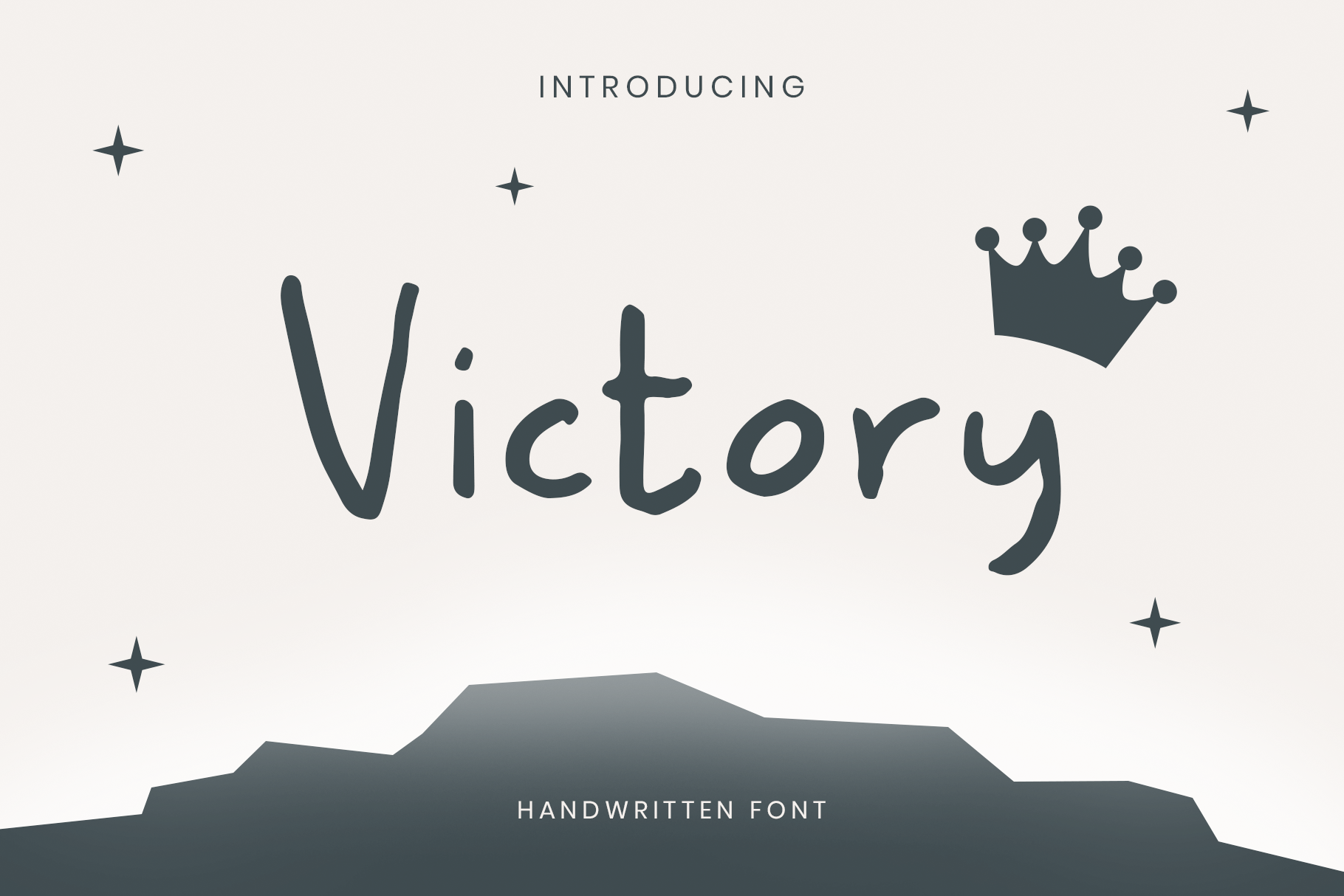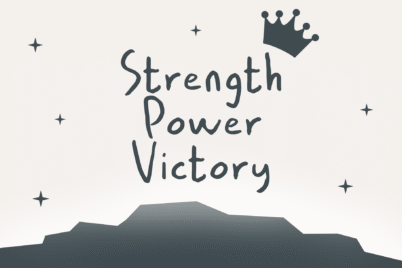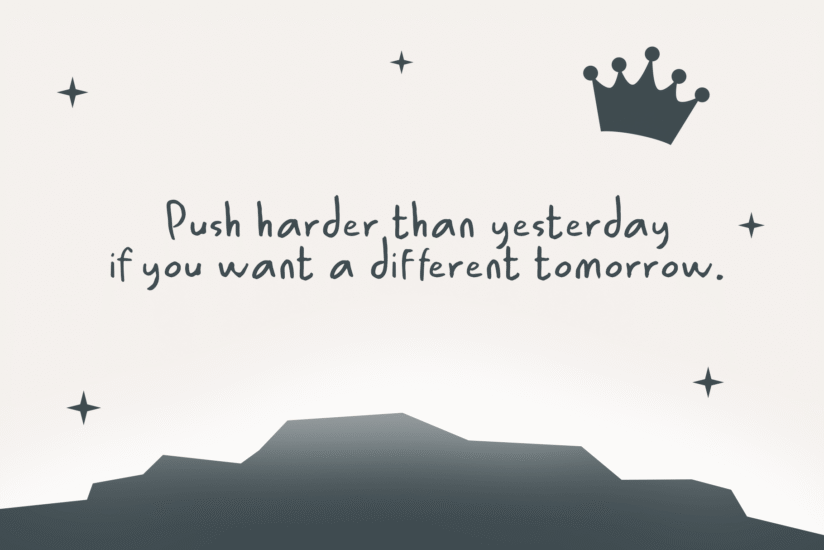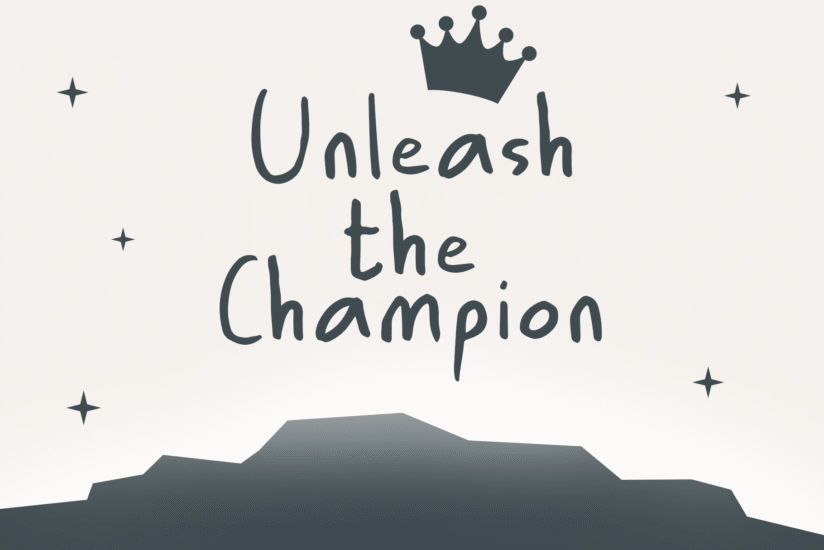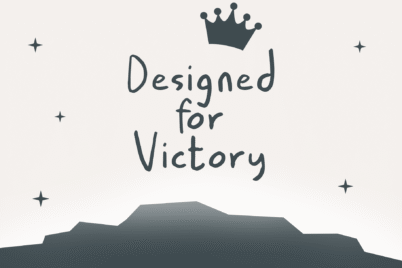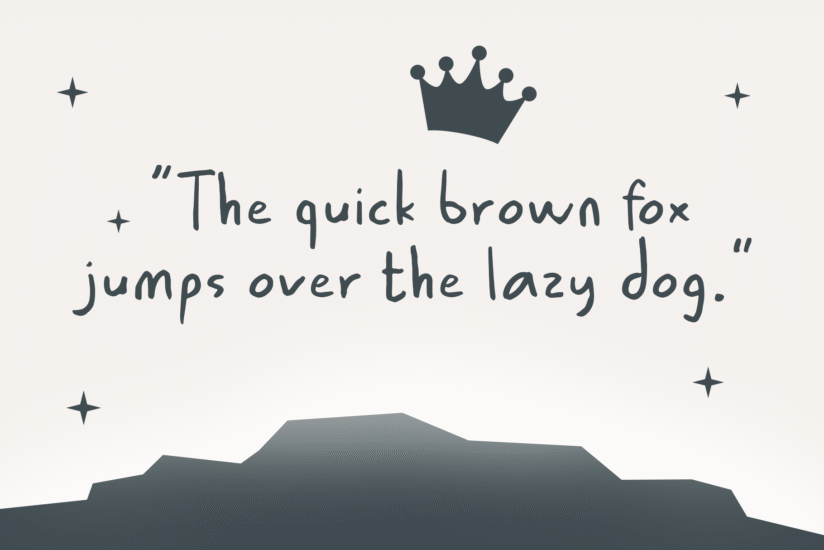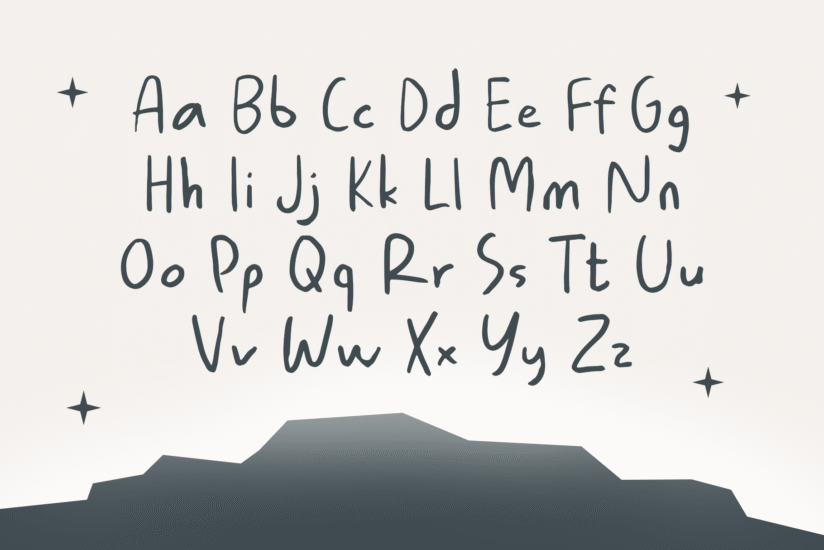
Victory – Stylish Handwriting Font Style for Branding & Logo Design
Victory HF
Immerse your designs in the art of casual elegance with Victory Handwritten Font. This handwriting font style effortlessly blends style and simplicity, offering a charming and laid-back vibe to your creative projects. Victory handcrafted details and flowing strokes give your text a unique, personalized touch that resonates with a sense of ease.
The versatility of Victory makes it suitable for various design applications, from invitations and greeting cards to branding and social media graphics. Whether you’re aiming for a relaxed, approachable feel or a touch of sophistication, Victory Handwriting Font Style provides the perfect balance.
Elevate your projects with the subtle beauty of Victory Handwritten Font, where every stroke tells a story of style and grace.